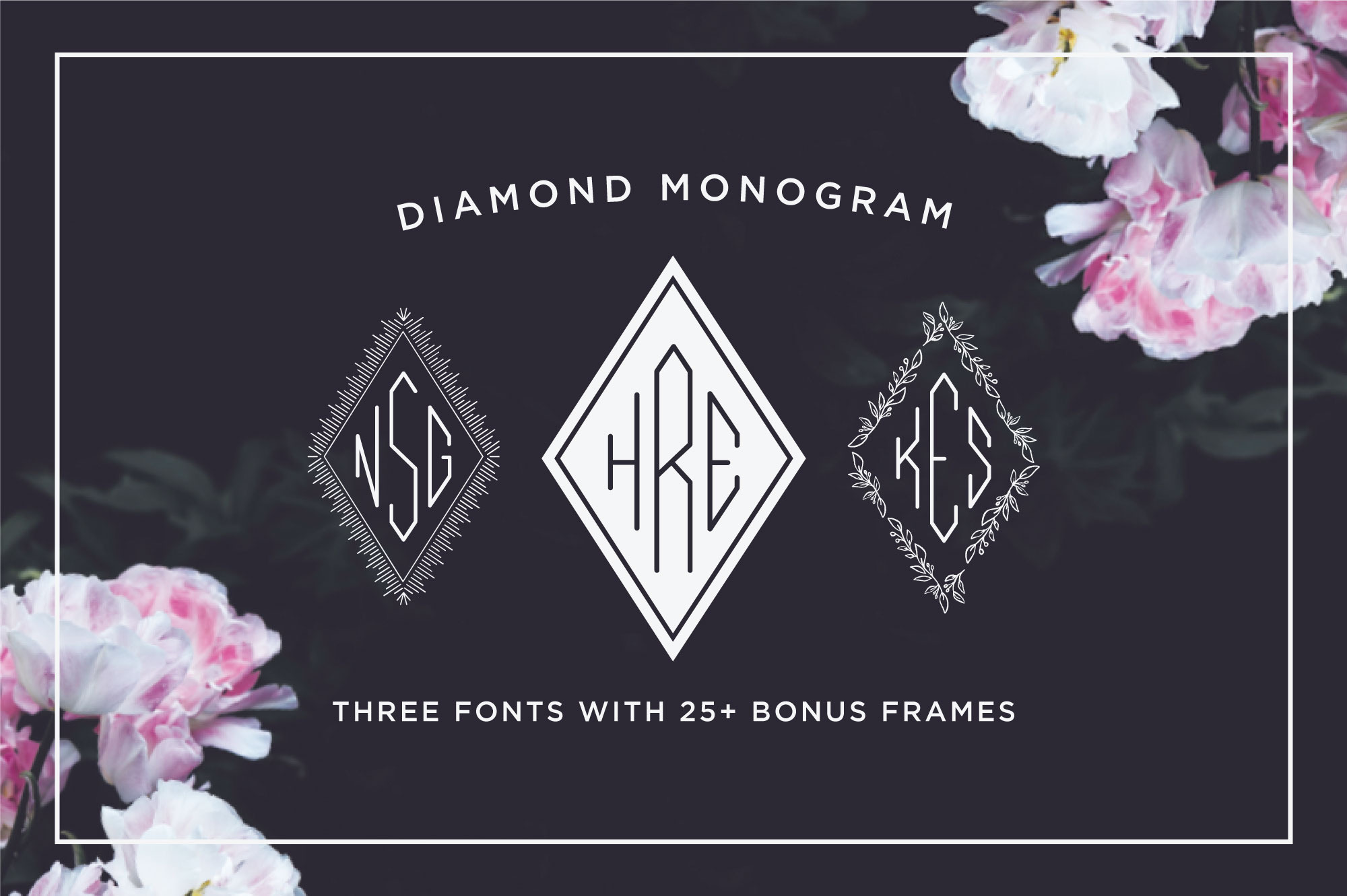
Diamond Monogram Font
Make gorgeous three letter diamond monograms quickly and easily in any program.
DIAMOND MONOGRAM is a trendy monogram set suitable for wedding invitations, branding, stationery, blog design, custom art, custom stamps, custom embossers, or any design purpose.
Monogram Left (TTF & OTF) - for the LEFT LETTERS of the monogram
Monogram Center (TTF & OTF) - for the CENTER LETTERS of the monogram
Monogram Right (TTF & OTF)- for the RIGHT LETTERS of the monogram